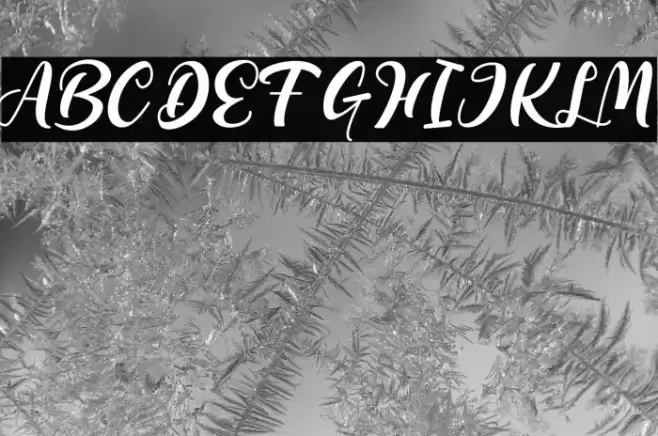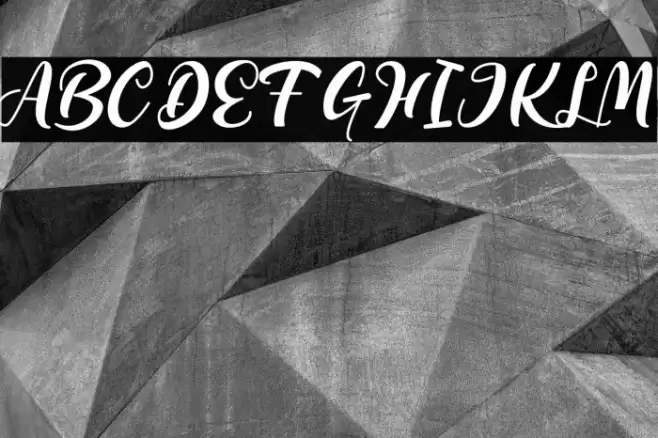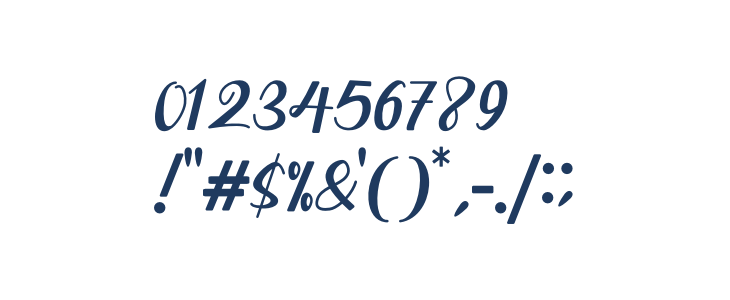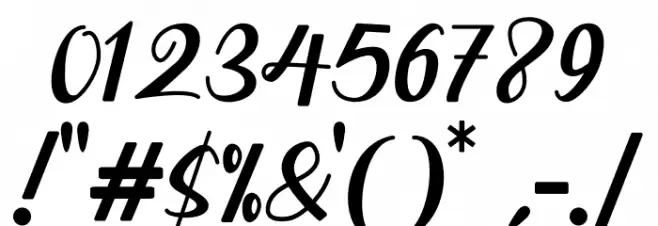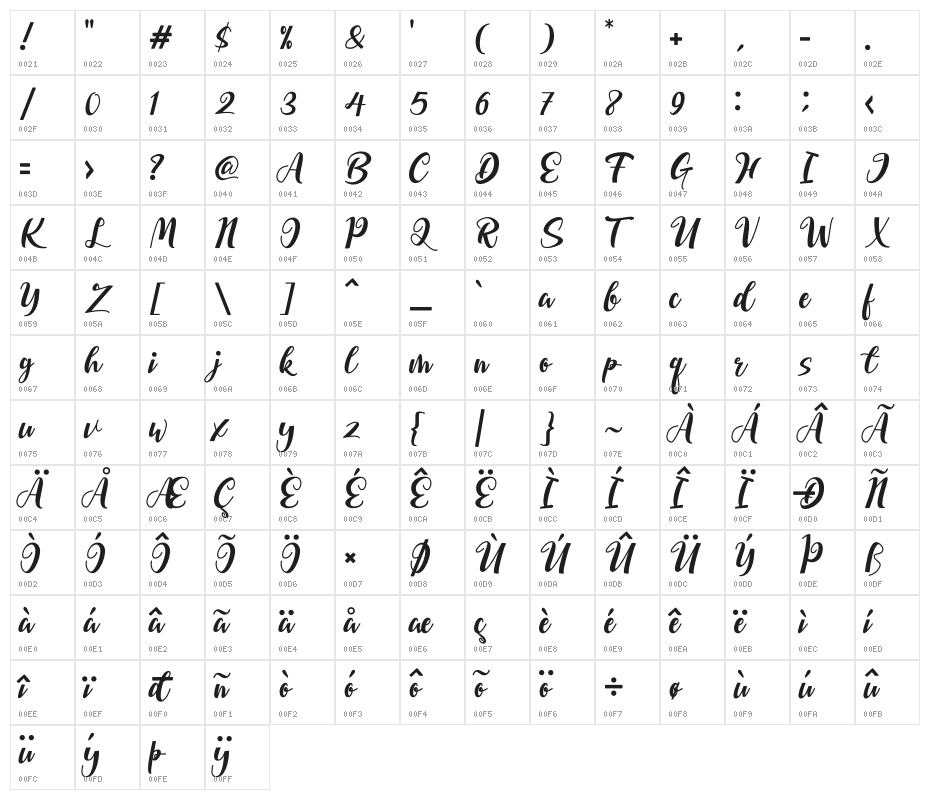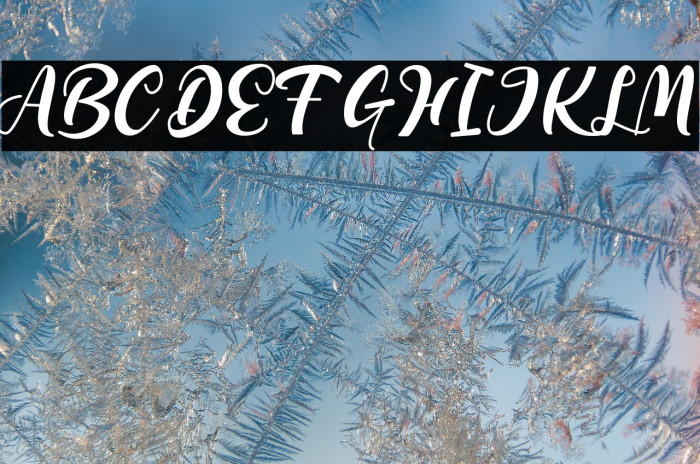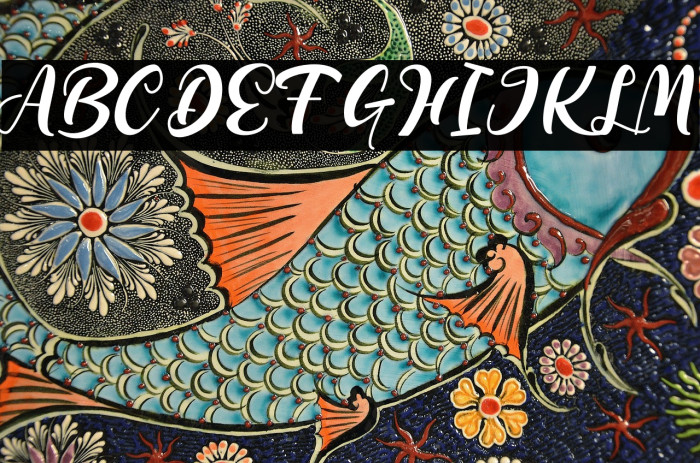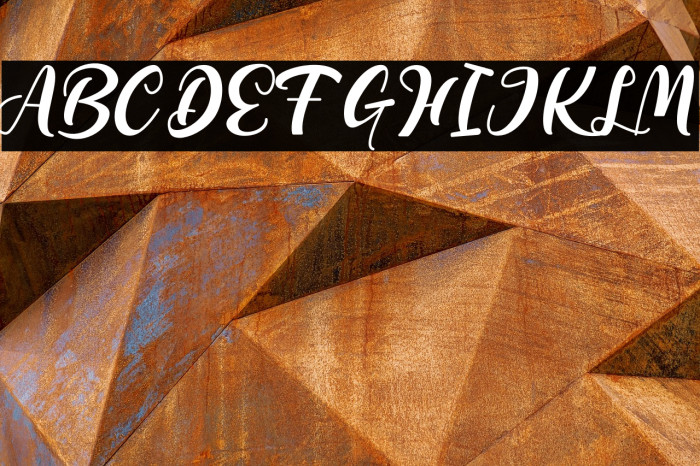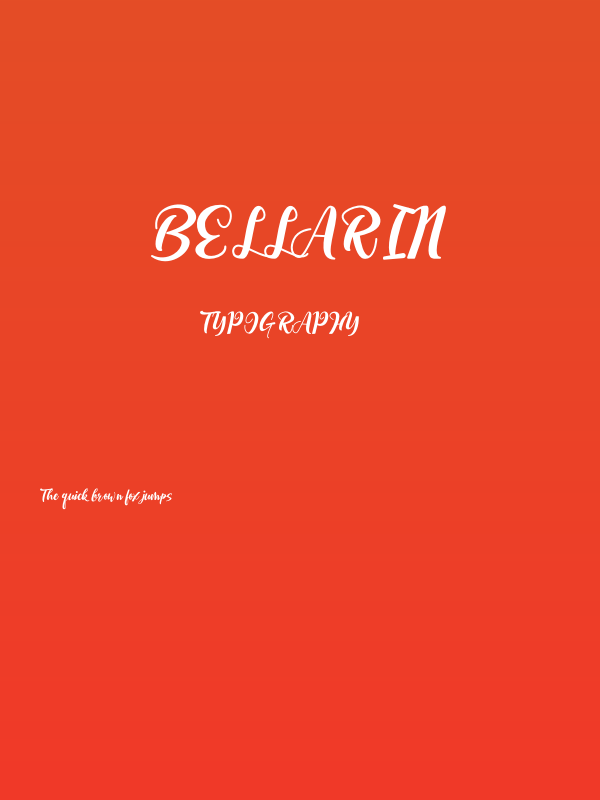
Bellarin Font
Bellarin Description
This font features an elegant and flowing script style, characterized by its smooth, cursive strokes and a sense of fluidity. The uppercase letters are bold and slightly slanted, with decorative flourishes that add a touch of sophistication. The lowercase letters maintain a consistent style, with rounded forms and a graceful connection between characters. Numbers and special characters are designed to complement the overall aesthetic, ensuring a cohesive look. The font's design is both modern and timeless, making it suitable for a variety of creative applications.
An elegant, flowing script font with bold, decorative flourishes from Uncategorized fonts.
- Font: Bellarin
- Proposed Projects: Ideal for wedding invitations, branding, logos, and elegant stationery.
- Overall Style: Elegant, Modern
- Use Case: Logos, Invitations, Branding